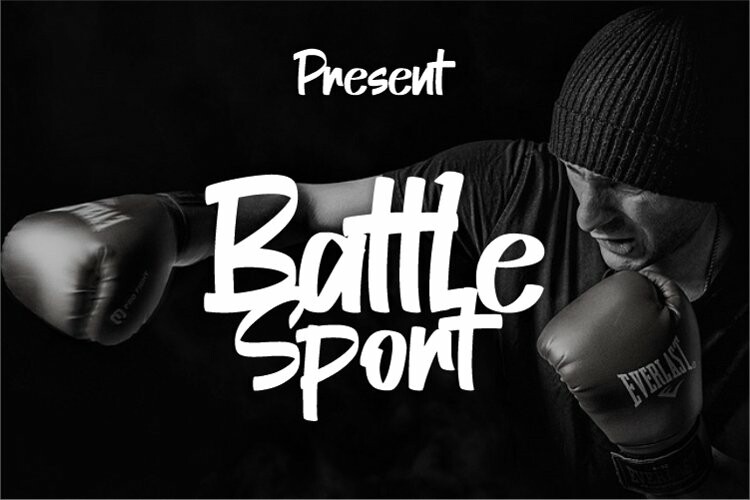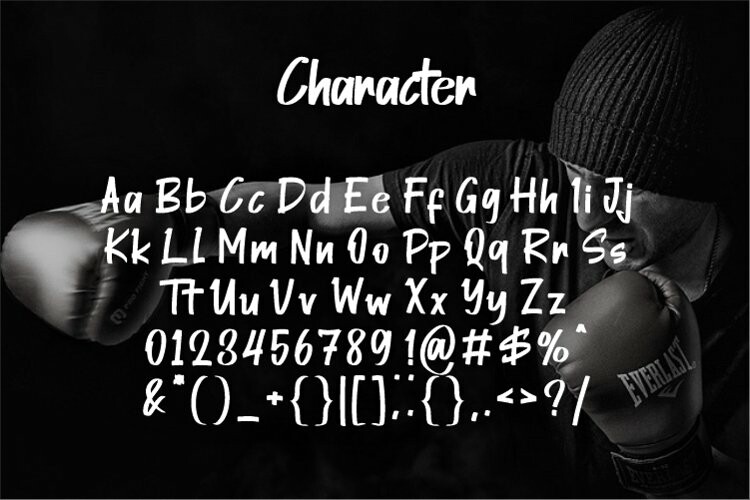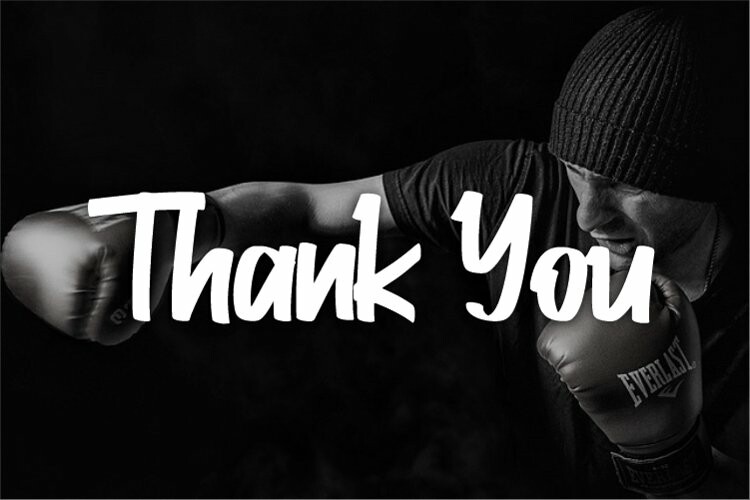
Battle Sport Font
Battle Sport FontBattle Sport is a script typeface that has a simple style & modern look.
This typeface is perfect for an elegant & luxurious logo, book or movie
design titles, fashion brands, magazines, clothing, fonts, quotes and more.